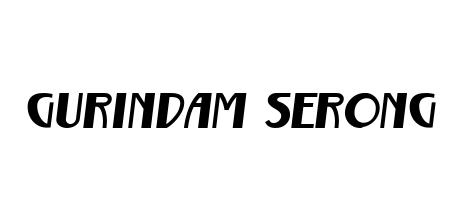
Gurindam
By Adien Gunarta
Gurindam Serong, a bold, italicized typeface, exudes a sense of dynamic energy. Its slightly slanted letters suggest movement and a playful attitude. The consistent weight and sharp serifs give it a modern, yet slightly retro feel. The overall impression is one of confident, assertive style.